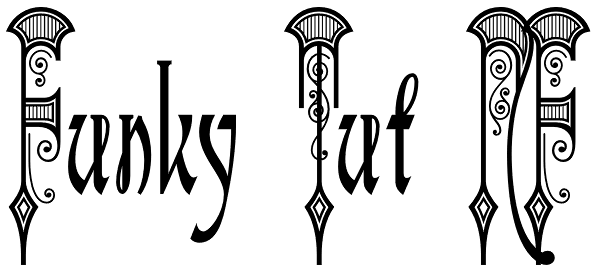
Funky Tut NF
Two handlettered typefaces from J. M. Bergling’s 1914 classic, Art Alphabets and Lettering collided to produce this lively and unusual combination. The caps were originally called "Morocco", and the lowercase are taken from his Keramic Text. The...